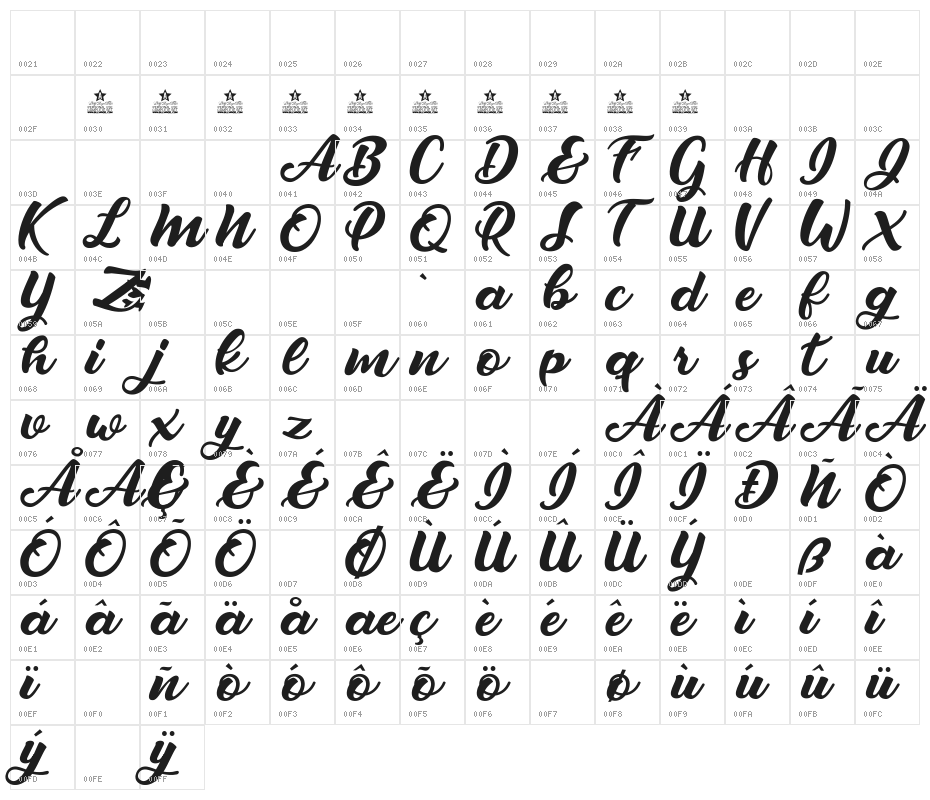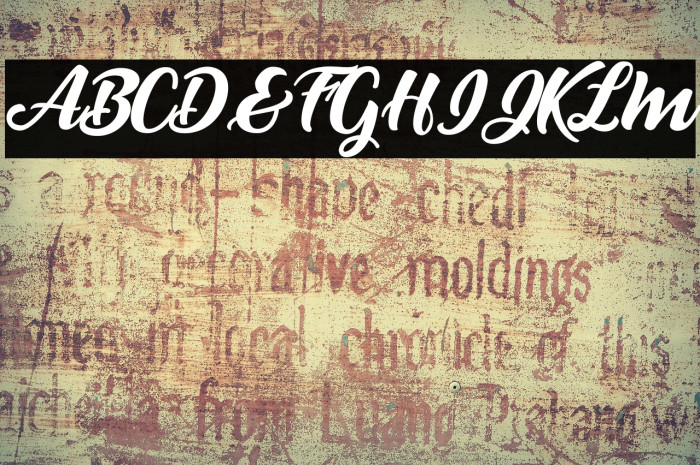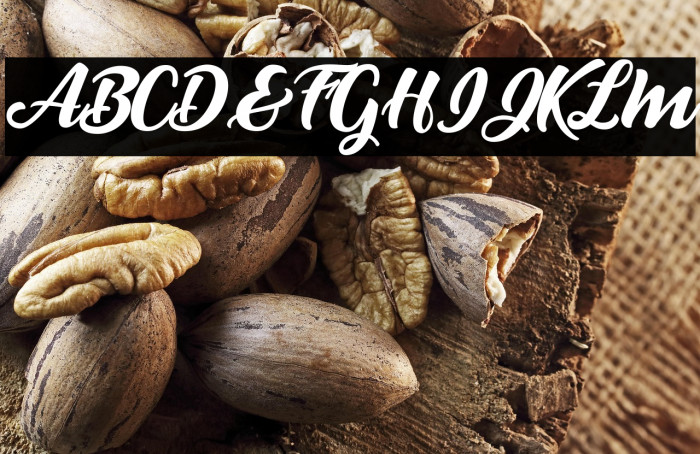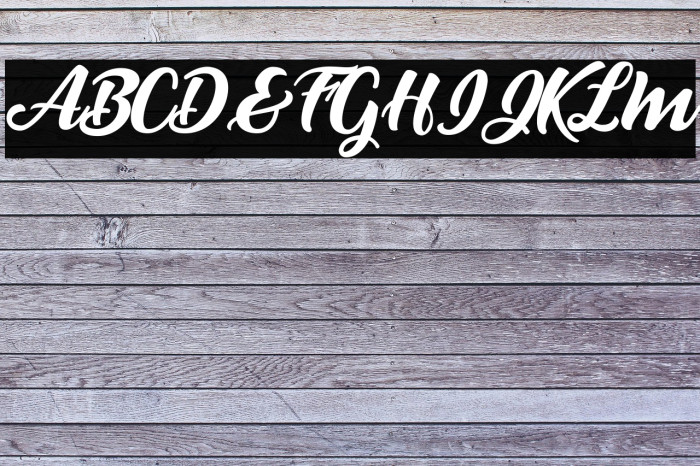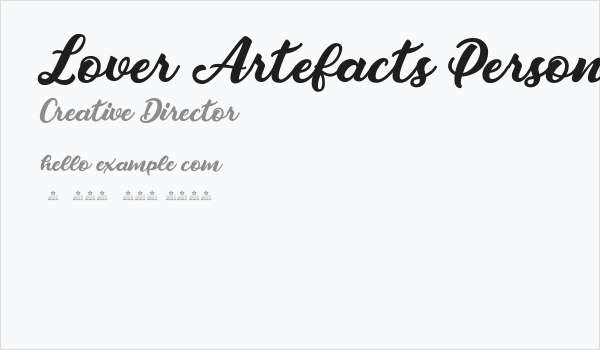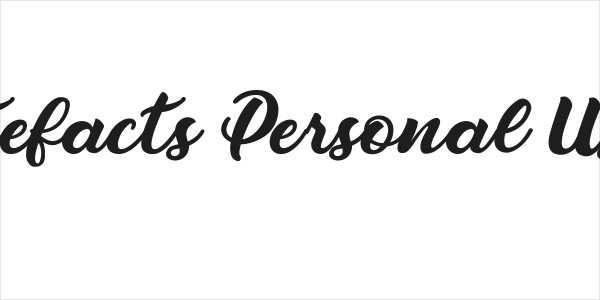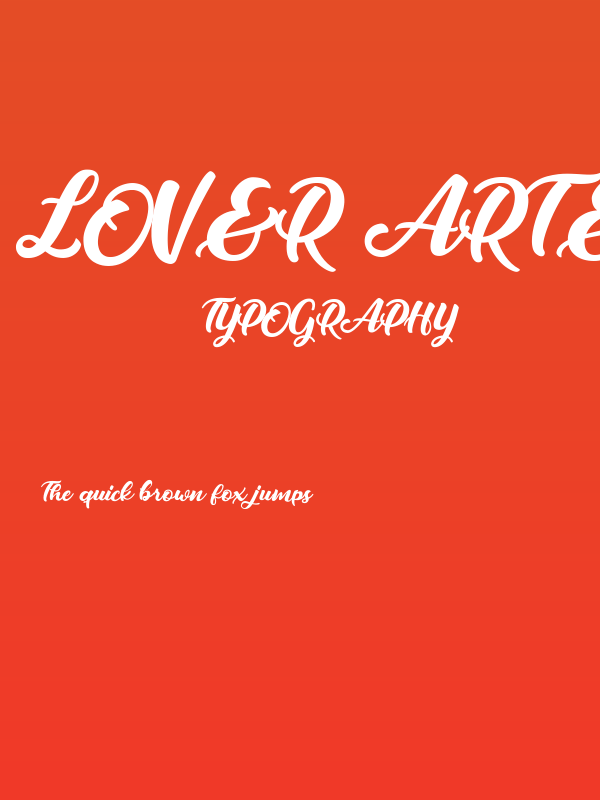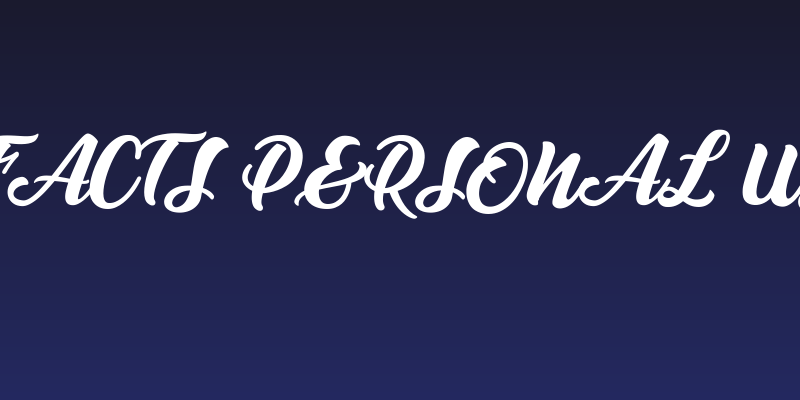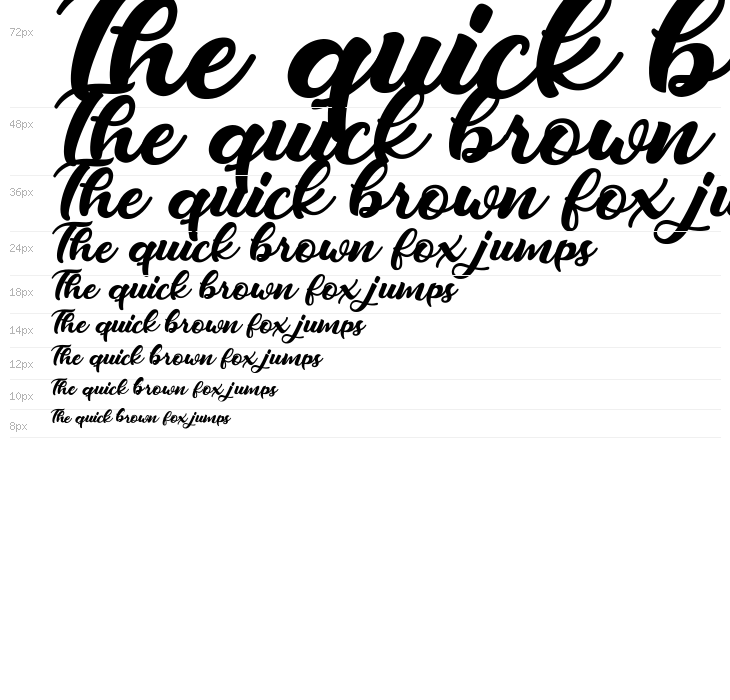
Lover Artefacts Personal Use Regular Font
Lover Artefacts Personal Use Regular Description
This font features a bold, flowing script style with a modern flair. The characters are intricately designed with smooth, connected strokes that give it an elegant and artistic appearance. The uppercase letters are slightly larger and more pronounced, while the lowercase letters maintain a consistent flow, enhancing readability. The numbers and special characters are crafted to match the overall aesthetic, making it versatile for various design needs. Its decorative nature makes it suitable for creative projects that require a touch of sophistication and style.
| Proposed Projects | Ideal for wedding invitations, branding, logos, and artistic posters. |